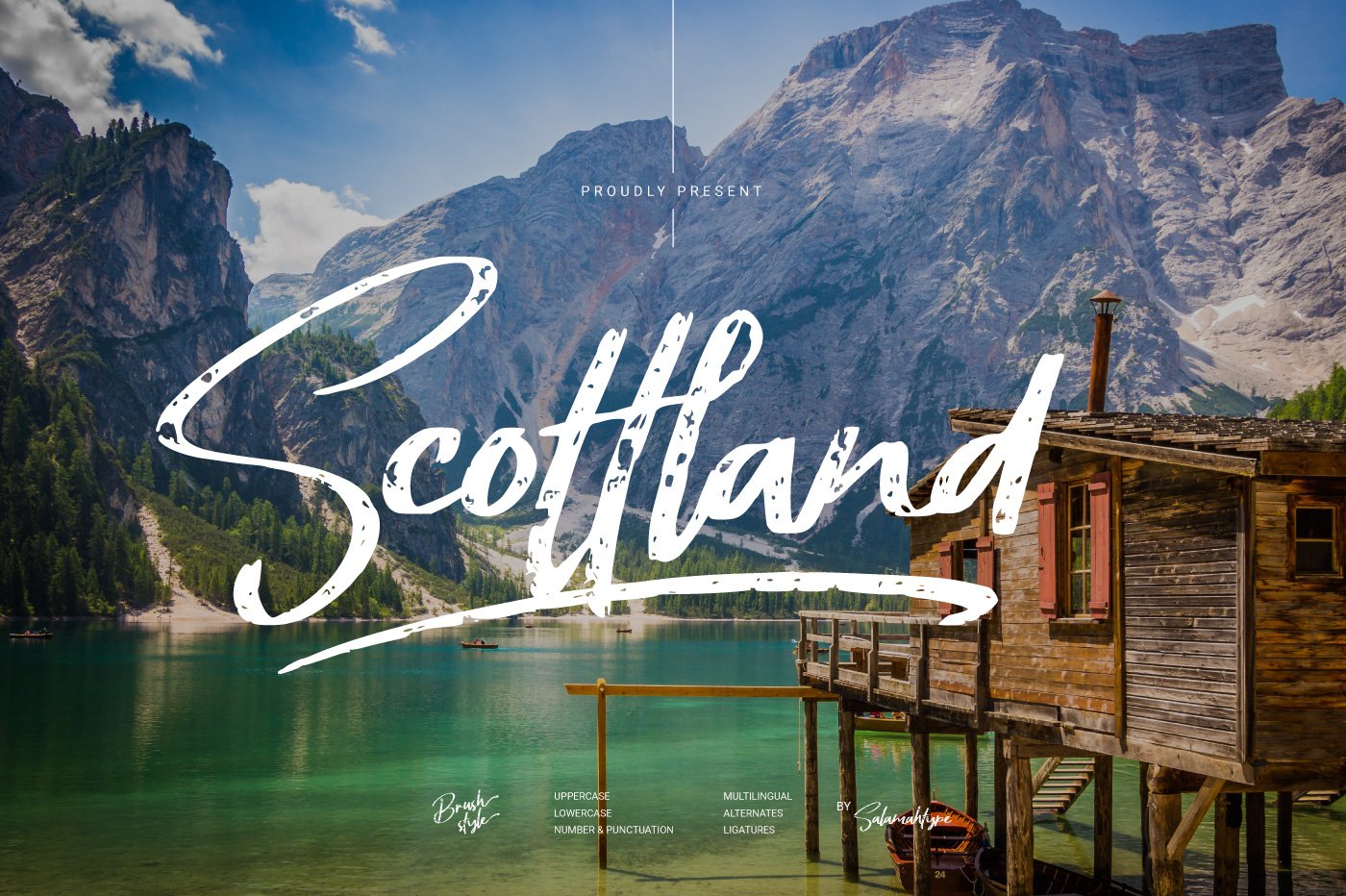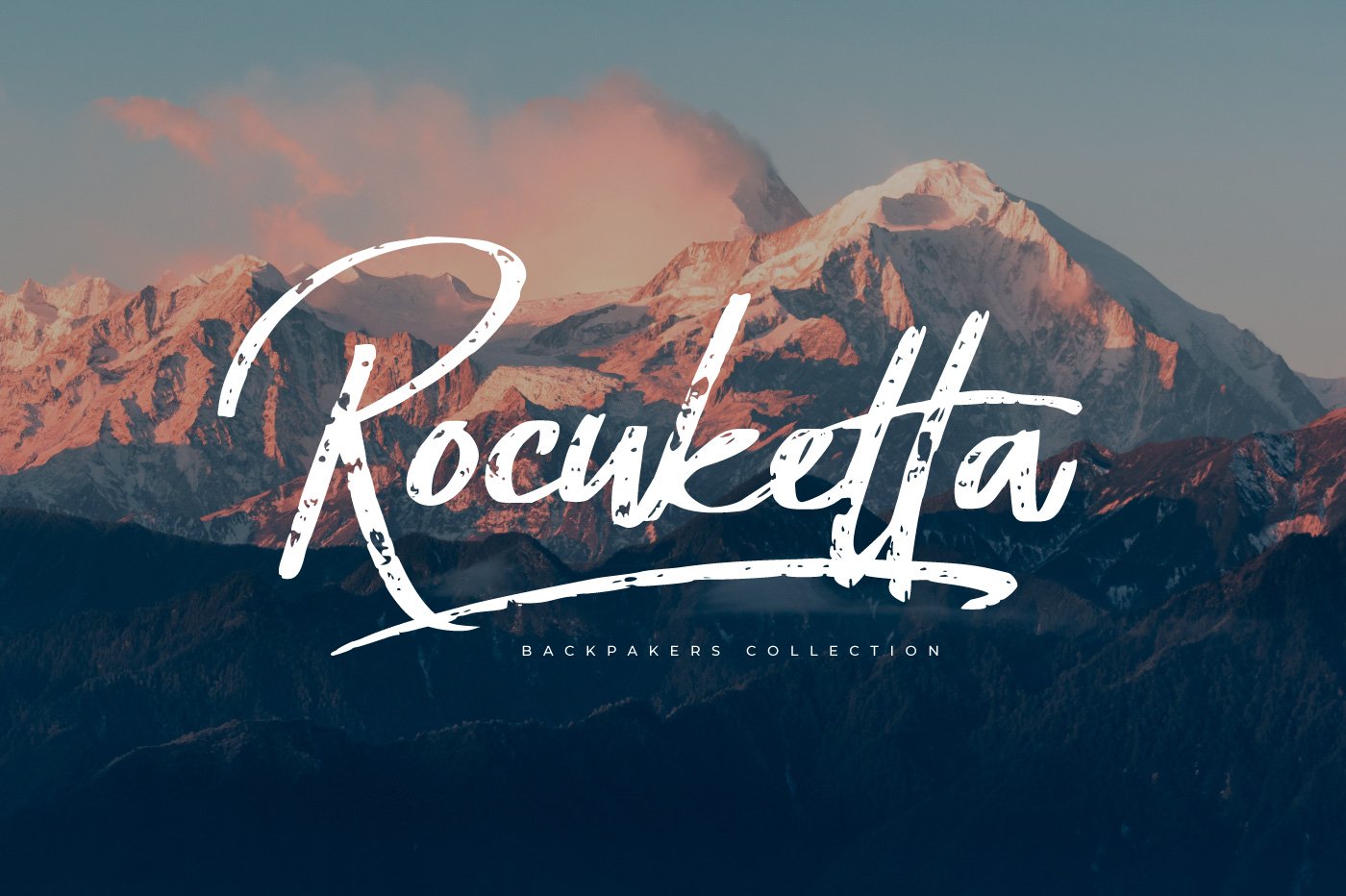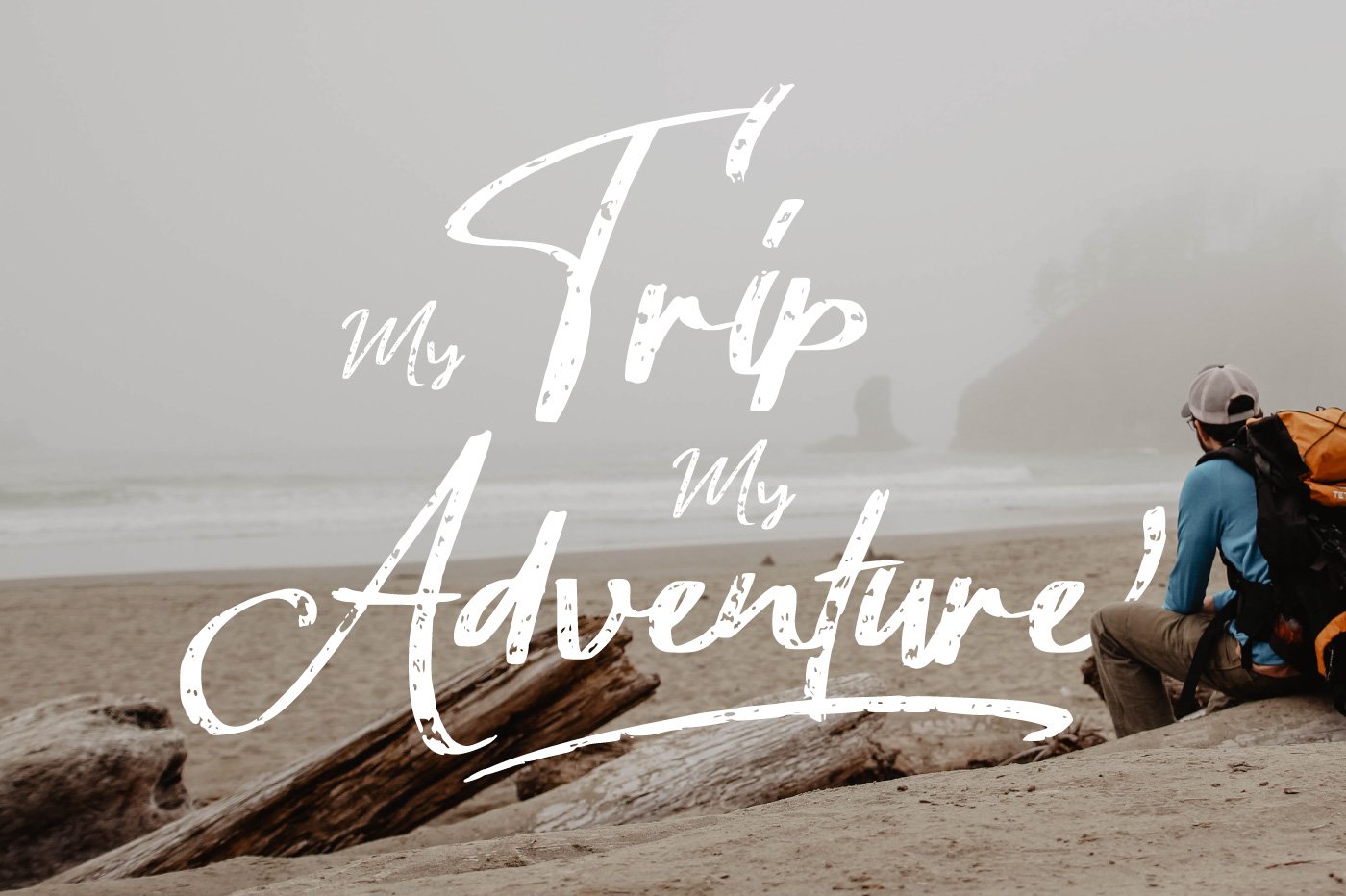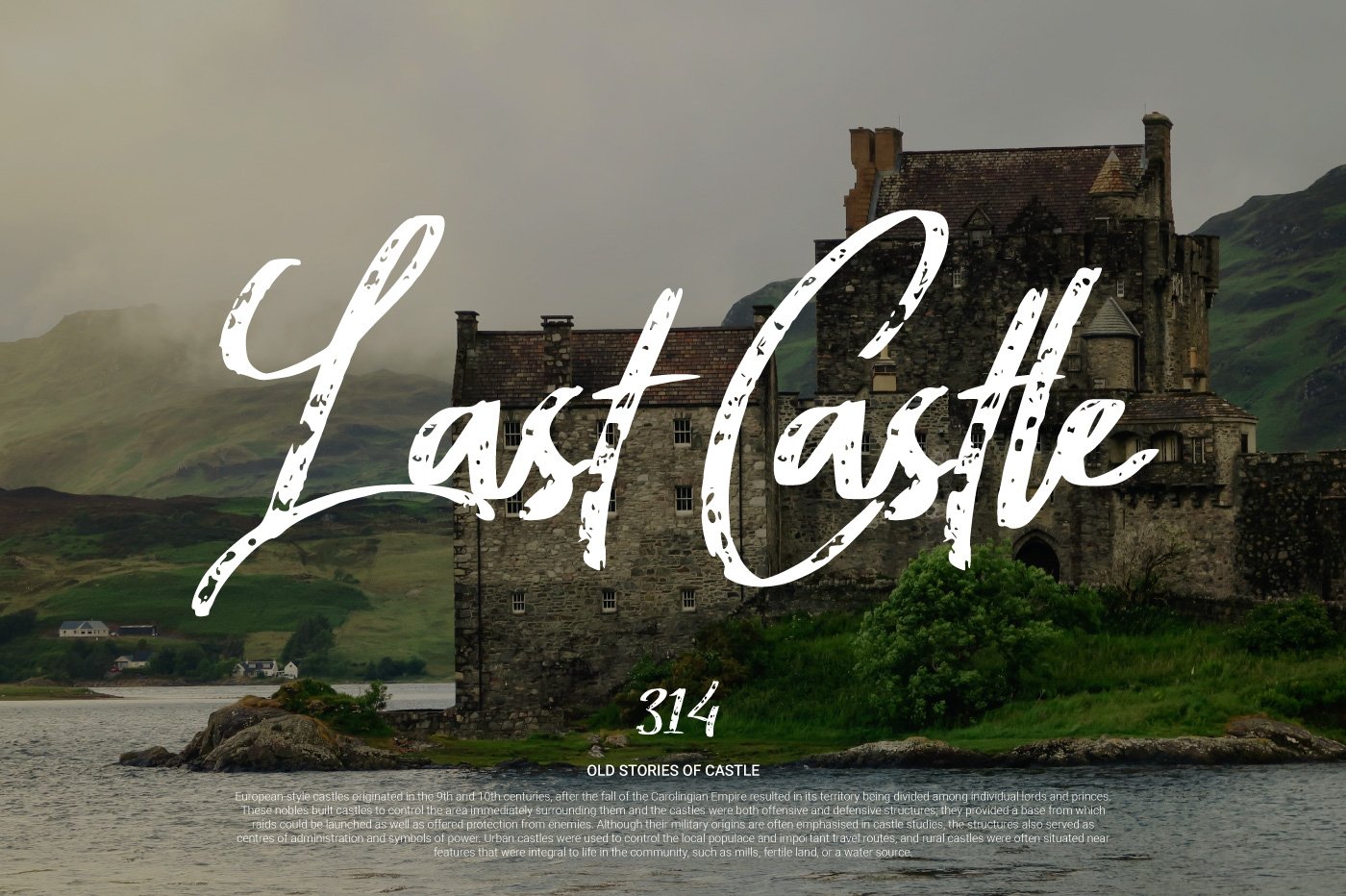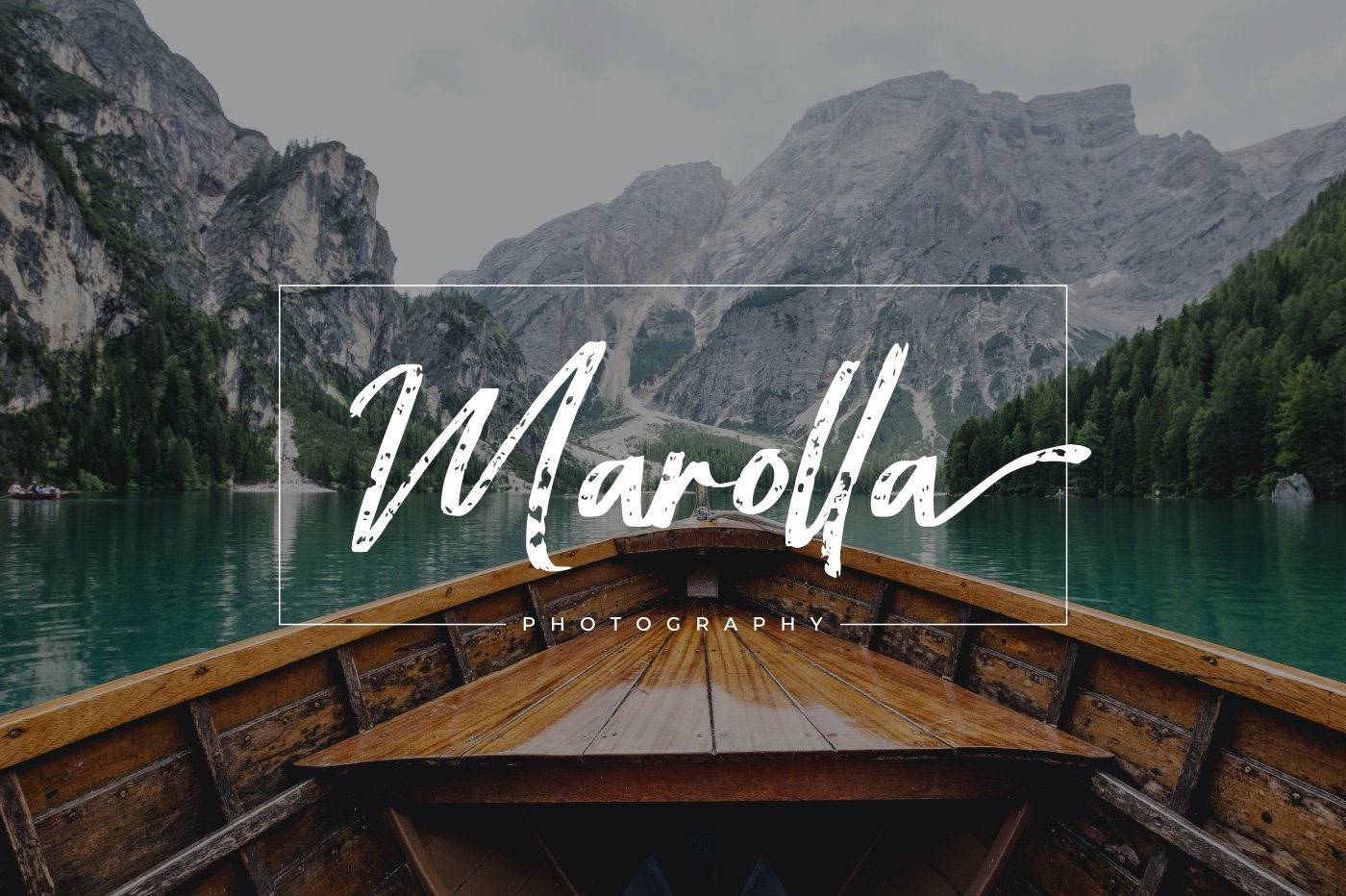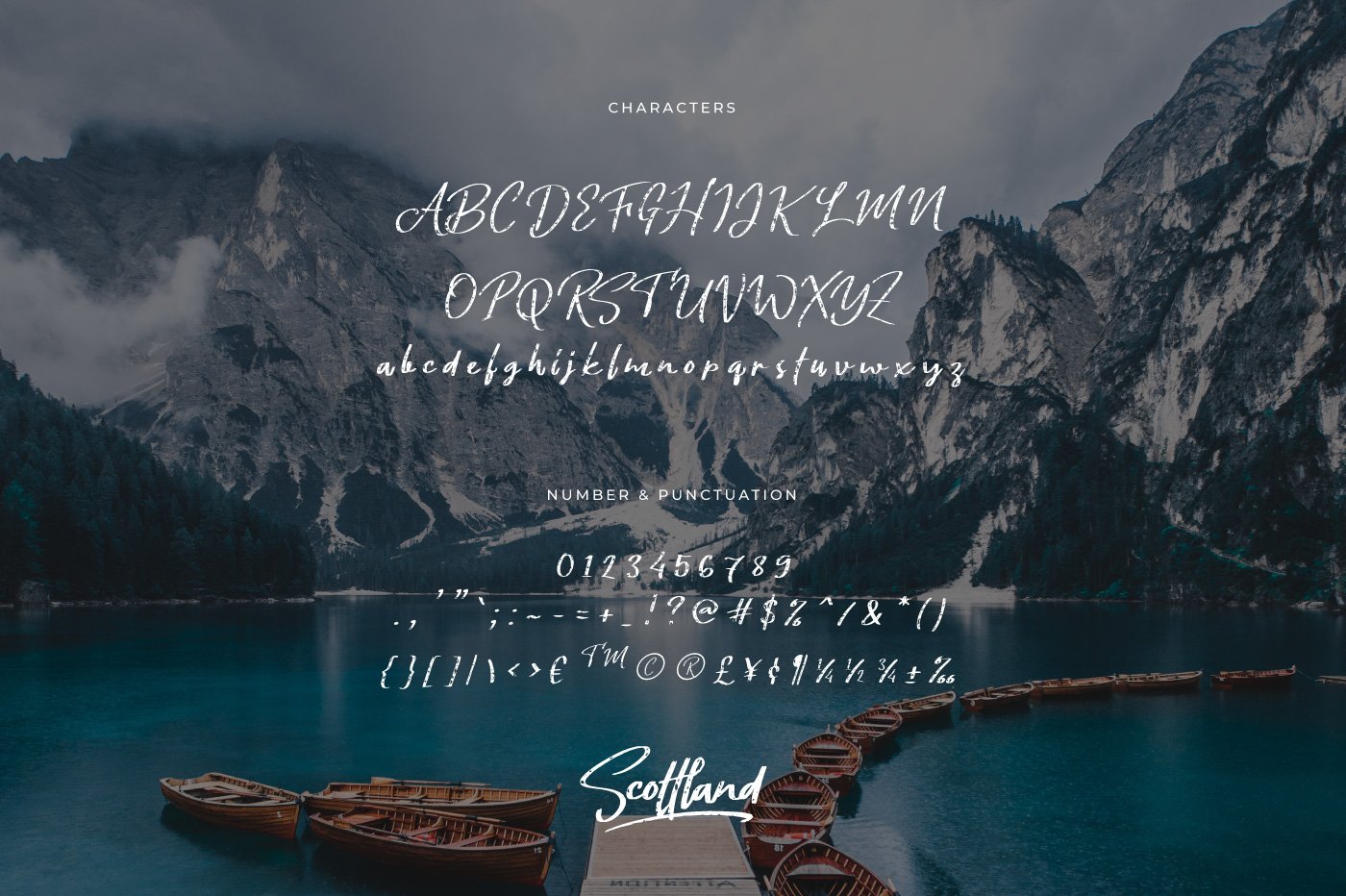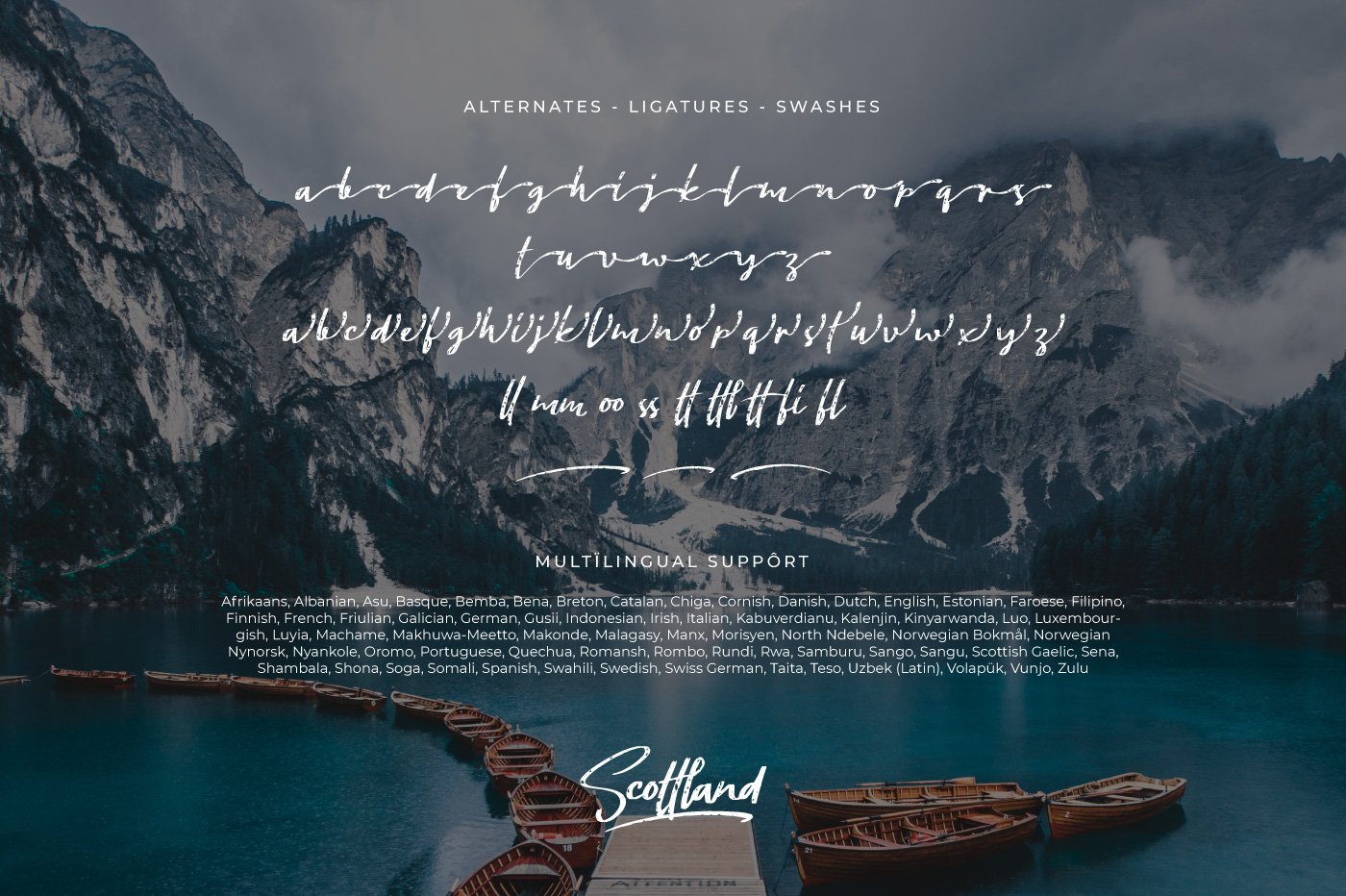
- Ligature and Alternate
- Standard and Multilingual Glyphs
Scottland Brush Preview
Scottland Brush
About the Font
Scottland is a brush font with a thin style and looks more textured. This font is perfect for logo, branding projects, posters, flyers, social media posts, advertisements, product packaging, product designs, label, photography, and so much more.Features :